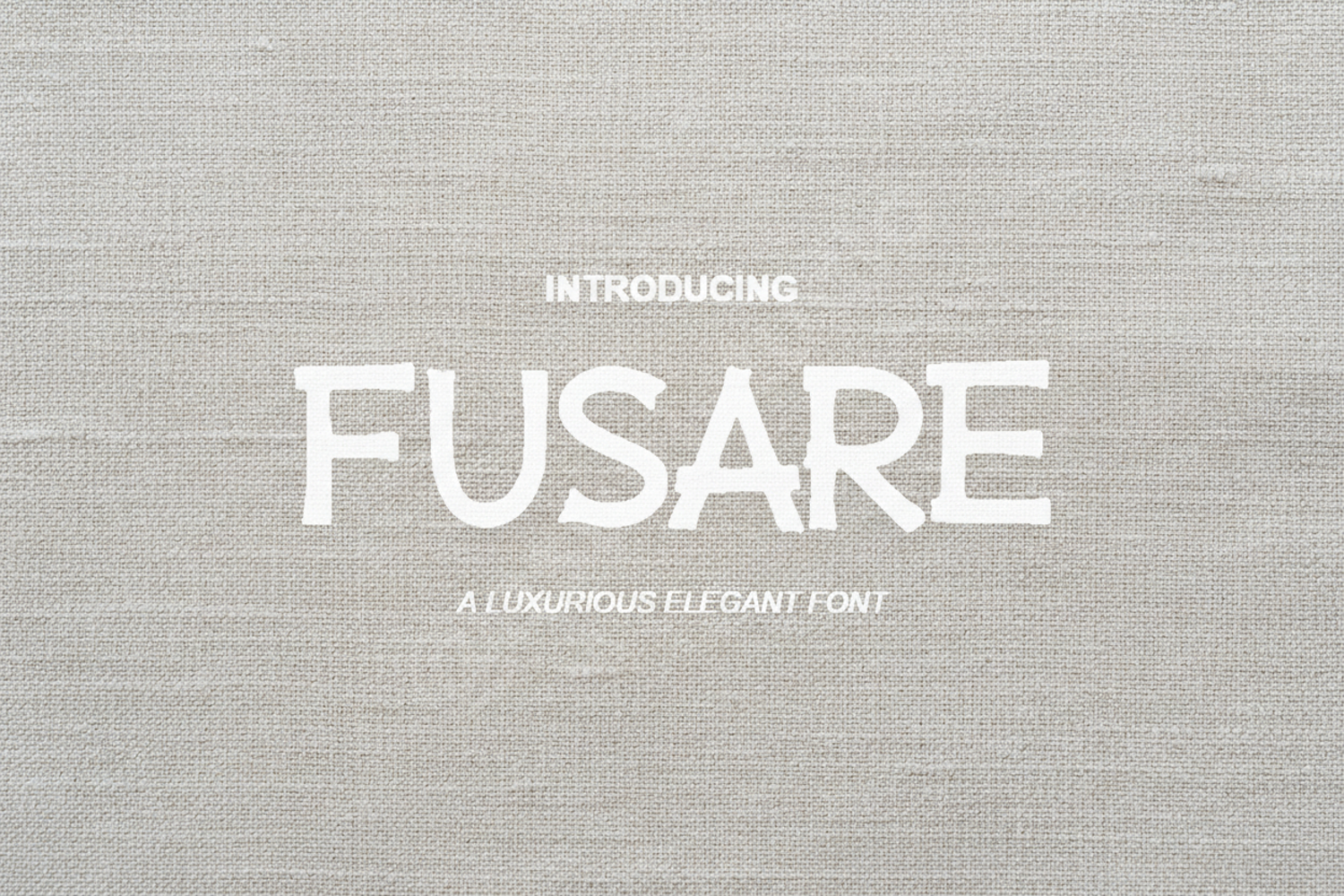
Fusare - Elegant Modern Serif Font
Fusare
Discover Fusare, a premium serif font designed to bring a touch of timeless elegance and modern sophistication to your creative projects. Crafted with precision, Fusare balances classic letterforms with contemporary flair, making it a versatile choice for designers seeking high-end aesthetics and professional legibility.